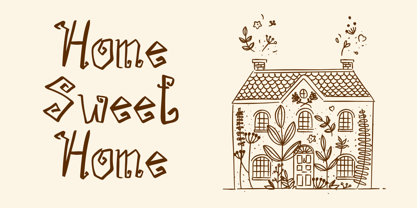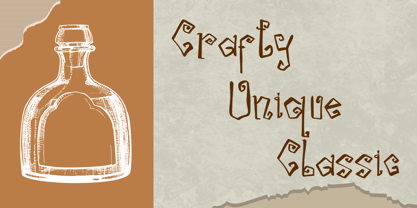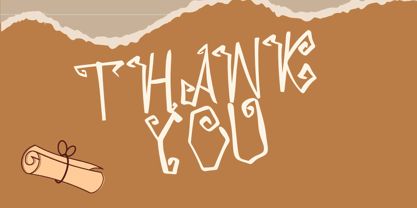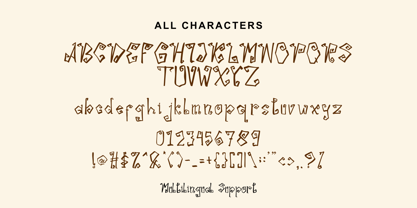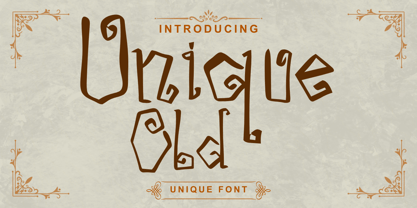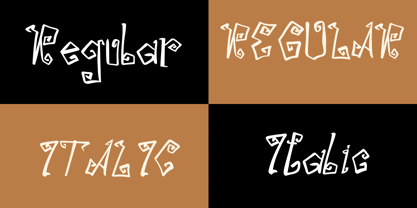
Unique Old
von Andrey Font Design
Die Schriftfamilie Unique Old wurde von Stephanus Prabowo entworfen und von Andrey Font Design veröffentlicht. Unique Old enthält 2 Stile und Familienpaketoptionen.
Experience a passage through time with the distinctive Ancient Egypt font. This extraordinary typeface channels the spirit of a historic civilization, seamlessly combining a unique selection of characters with a plethora of alternative styles. Whether you’re crafting an elegant logo, establishing your brand’s identity, promoting travel adventures, arranging an eye-catching magazine layout, inscribing poignant quotes or seeking a stylish text layer over any image, the Ancient Egypt font offers a touch of distinction sure to leave a lasting impression. Step back into the annals of time and express your content with the timeless aesthetics of the Ancient Egypt font.
Designer: Stephanus Prabowo
Herausgeber: Andrey Font Design
Foundry: Andrey Font Design
Eigentümer des Designs: Andrey Font Design